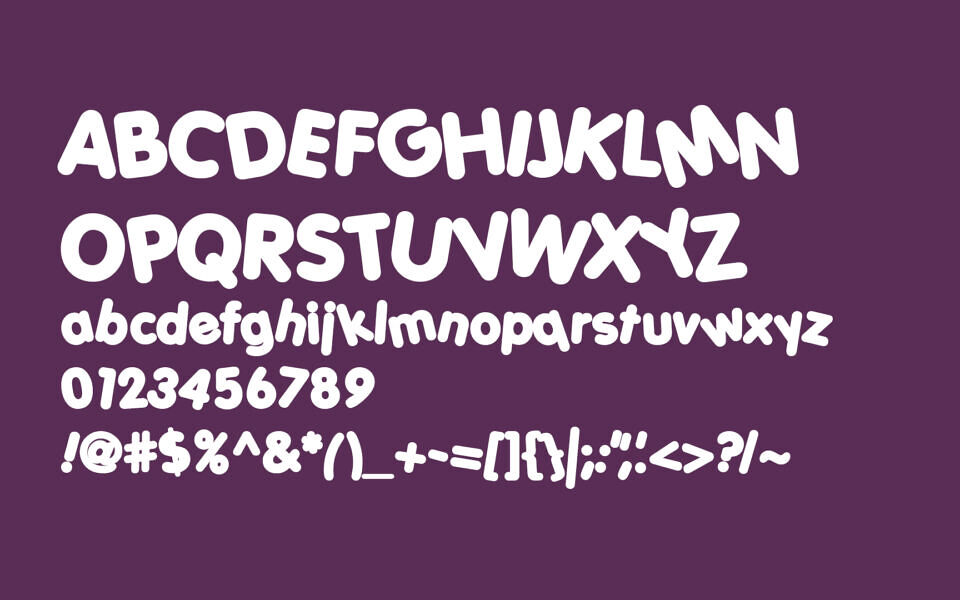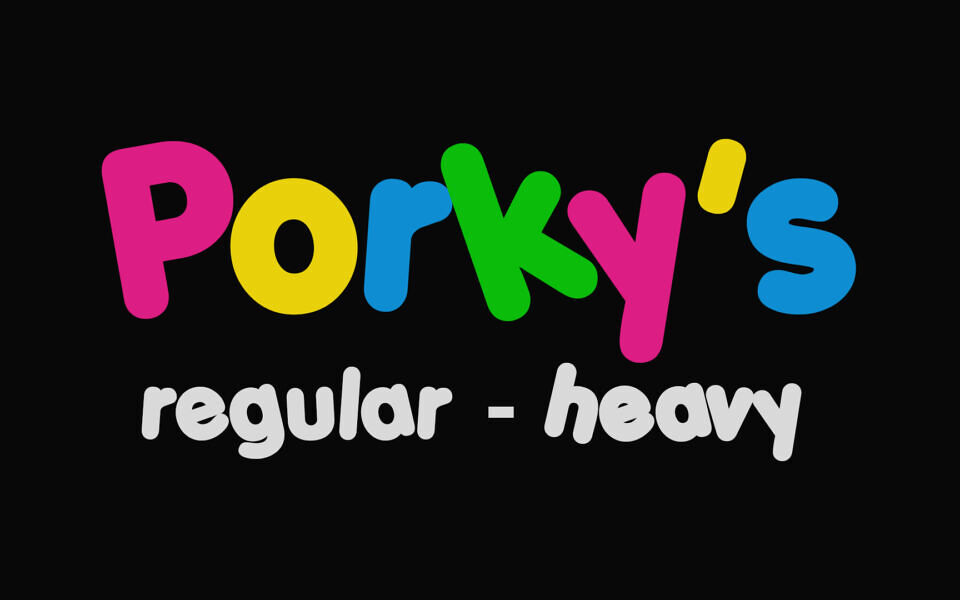
Porky’s Font
Porky’s is a playful, bubbly display font that captures a fun, retro comic vibe. Created by Fontalicious as a tribute to the classic 1980’s film “Porky’s”, this heavy-weight typeface features thick, rounded strokes and a friendly, hand-drawn aesthetic.
Its bold, chunky characters make it ideal for high-impact posters, logos, and children’s branding. Available in both regular and heavy styles, Porky’s includes a comprehensive character set with quirky symbols. Add a touch of groovy nostalgia to your creative designs with this iconic, high-energy cartoon font.